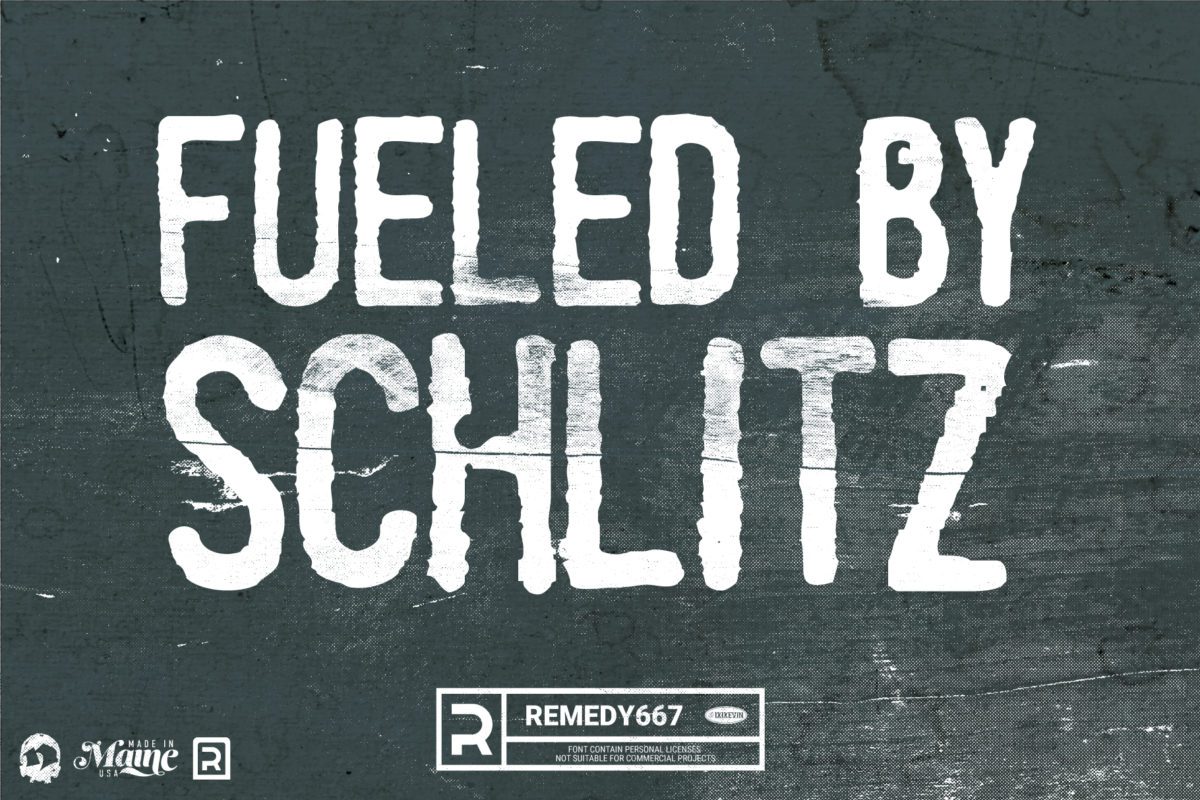
A new twist on an old classic. Fueled By Schlitz is not just your dad’s font anymore! The Fueled By Schlitz typeface was made by collecting minor printing errors found on cardboard boxes. Download it now to make your designs cohesive and nostalgic!
- Perfect for headings, logos, posters, t-shirt designs and more